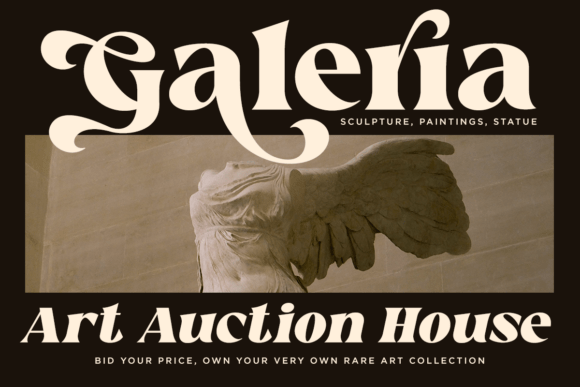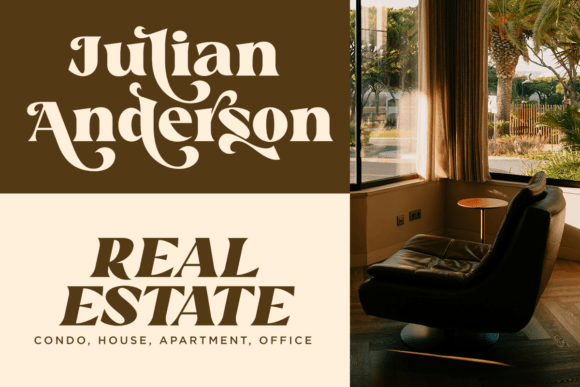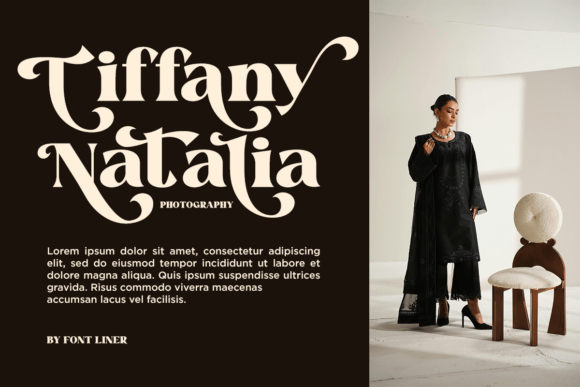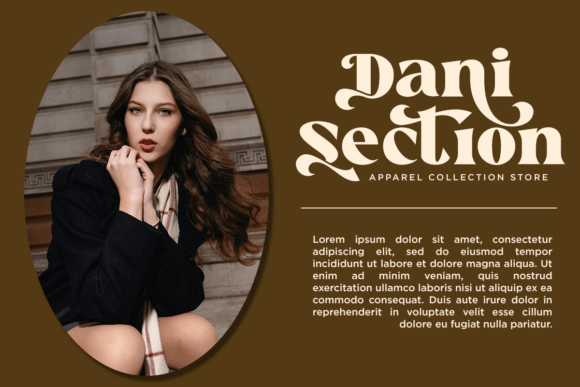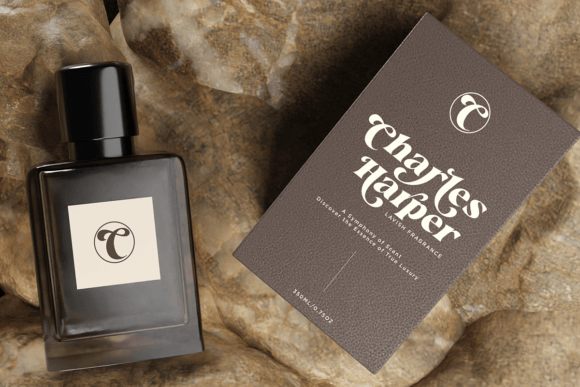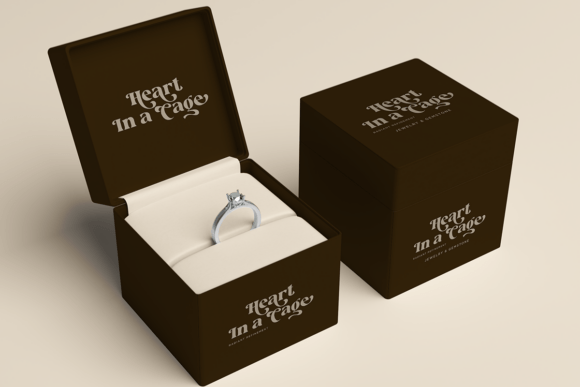
Introduction to Melika Font
Melika is a captivating modern serif font that blends classic elegance with contemporary flair.
Featuring beautiful, flowing curves and a sophisticated aesthetic, Melika is designed to make your text stand out This versatile typeface comes in both Regular and Italic styles to offer complete design flexibility.
Key Features of Melika Font